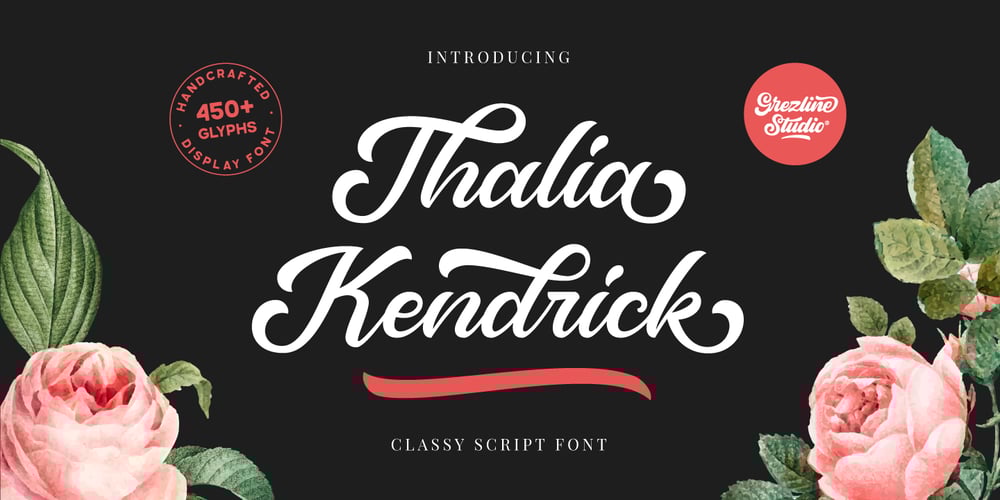
Thalia Kendrick Font Family was designed by Akhmad Reza Fauzi and published by Grezline Studio. Thalia Kendrick contains 2 styles and family package options. Thalia Kendrick is beautiful and assertive script font, crafted to give your headlines and logotype projects a stylish touch. This font reads as strong, confident, and dynamic and can add tons of nostalgic character to your designs.Feature :- A lot of Alternates ( With a Total of 450 Glyphs )- Multilingual Language- Works on PC & Mac- Simple installations- Accessible in the Adobe Illustrator, Adobe Photoshop, Adobe InDesign, even works on Microsoft Word.